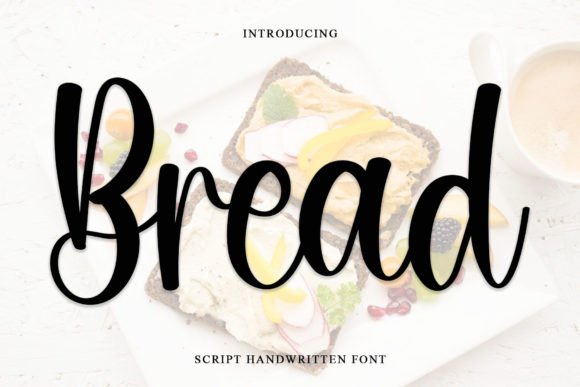
Bread Font: The Perfect Addition to Your Design Toolbox
Bread Font is a stunning handwritten font that has captured the hearts of designers and crafters alike. With its elegant touch and incredibly distinct style, it’s no wonder why this font has become a favorite among creative professionals. In this article, we’ll dive into the world of Bread Font, exploring its unique features, uses, and benefits.
A Timeless Style
Bread Font is described as a neat and beautiful handwritten font, and for good reason. Its elegant touch gives it a timeless quality that makes it perfect for a wide range of projects. Whether you’re working on a logo, branding materials, or social media graphics, Bread Font is sure to add a touch of sophistication and style.
Distinct and Eye-Catching
One of the standout features of Bread Font is its incredibly distinct style. The font’s unique blend of curves and lines creates a visually appealing effect that’s sure to grab attention. Whether you’re looking to create a bold statement or add a touch of whimsy to your design, Bread Font is the perfect choice.
Bread Font is a versatile font that can be used in a wide range of projects. Here are just a few ideas to get you started:
- Logos and Branding: Use Bread Font to create a unique and memorable logo that sets your brand apart.
- Social Media Graphics: Add a touch of elegance to your social media graphics with Bread Font.
- Invitations and Stationery: Use Bread Font to create beautiful invitations, greeting cards, and other stationery items.
- Packaging: Add a touch of sophistication to your product packaging with Bread Font.
Why Designers and Crafters Love Bread Font
So why have designers and crafters fallen in love with Bread Font? Here are just a few reasons:
- Ease of Use: Bread Font is incredibly easy to use, even for those with limited design experience.
- Customization: The font is highly customizable, allowing you to adjust the size, color, and style to fit your needs.
- Unique Style: Bread Font’s unique style sets it apart from other fonts, making it perfect for designers and crafters looking to add a touch of personality to their work.
Tips for Using Bread Font
Here are a few tips for getting the most out of Bread Font:
- Experiment with Sizes: Don’t be afraid to experiment with different sizes to find the perfect fit for your project.
- Play with Colors: Try out different colors to see what works best with your design.
- Mix and Match: Combine Bread Font with other fonts to create a unique and visually appealing effect.
Bread Font is a beautiful and versatile handwritten font that’s perfect for designers and crafters looking to add a touch of elegance and sophistication to their work. With its timeless style, incredibly distinct features, and ease of use, it’s no wonder why Bread Font has become a favorite among creative professionals. Whether you’re working on a logo, social media graphics, or packaging, Bread Font is sure to help you create spectacular designs that stand out from the crowd.